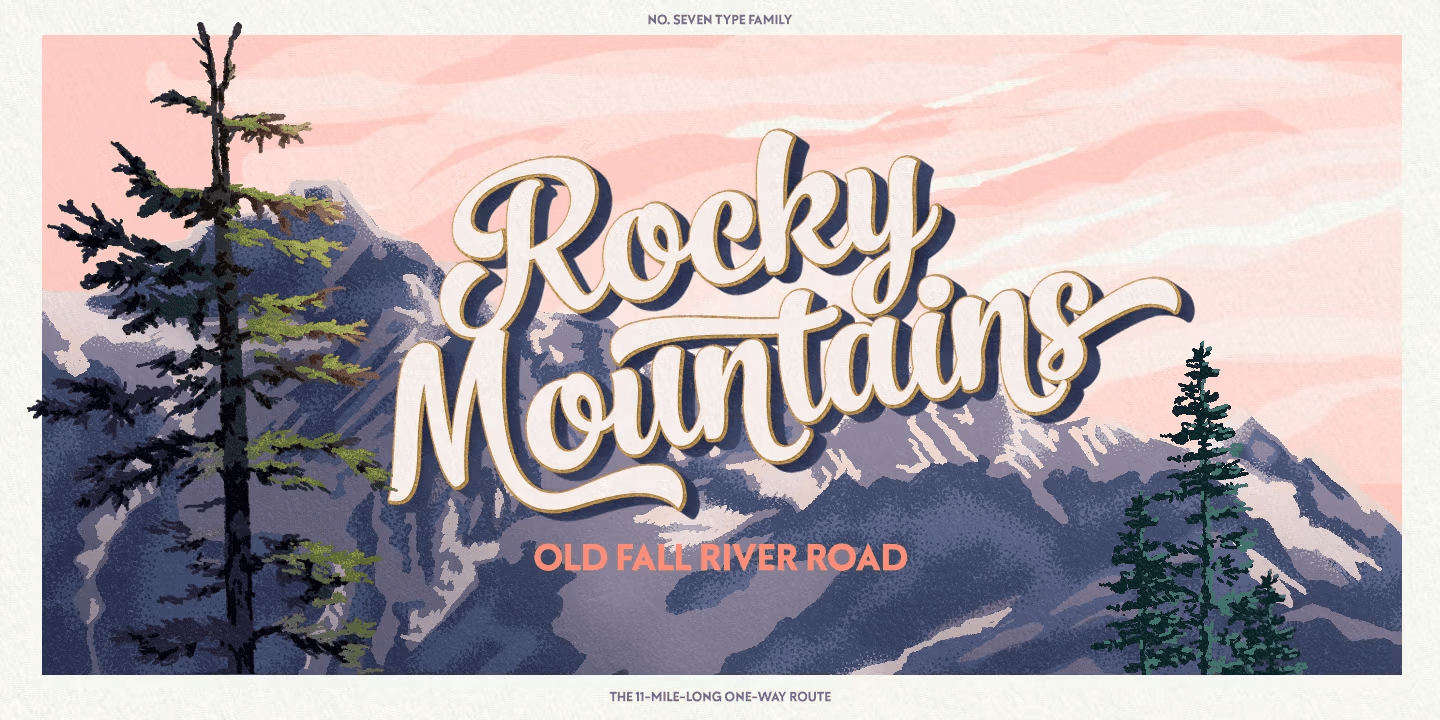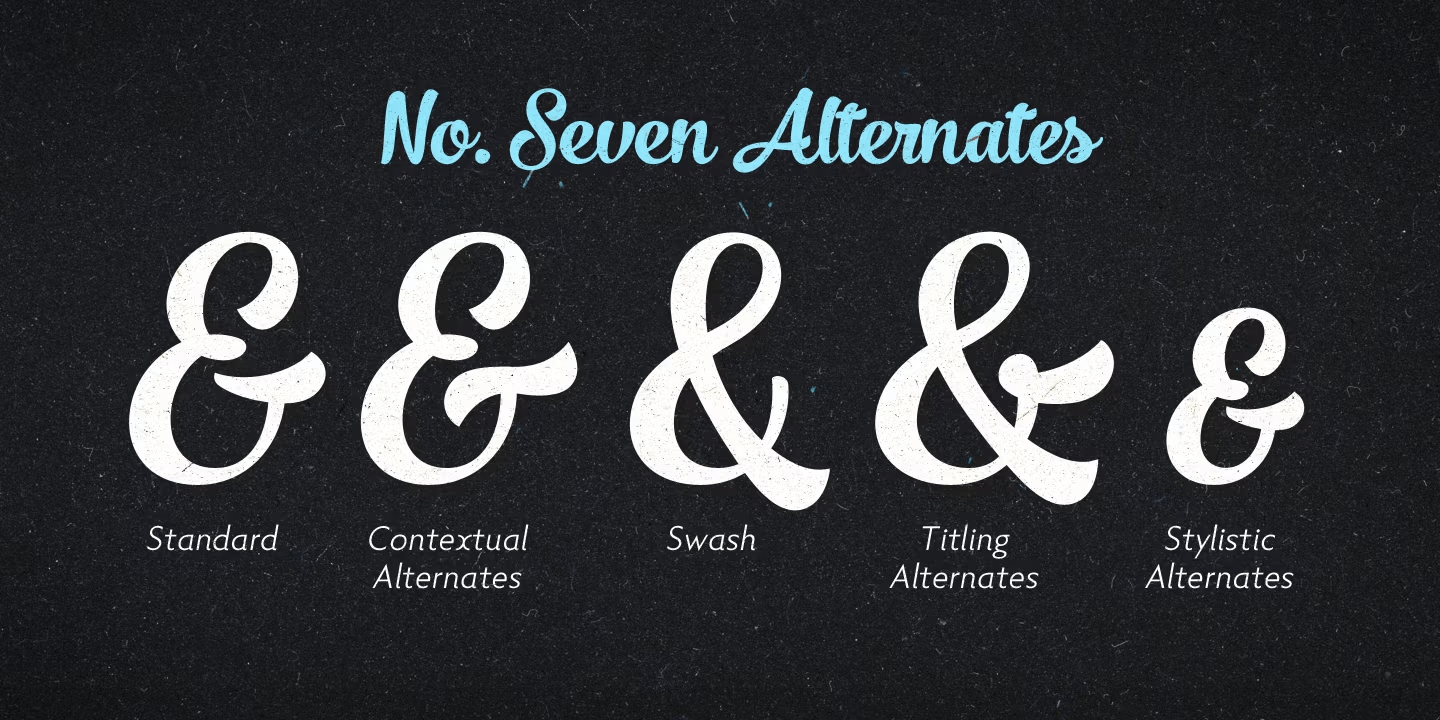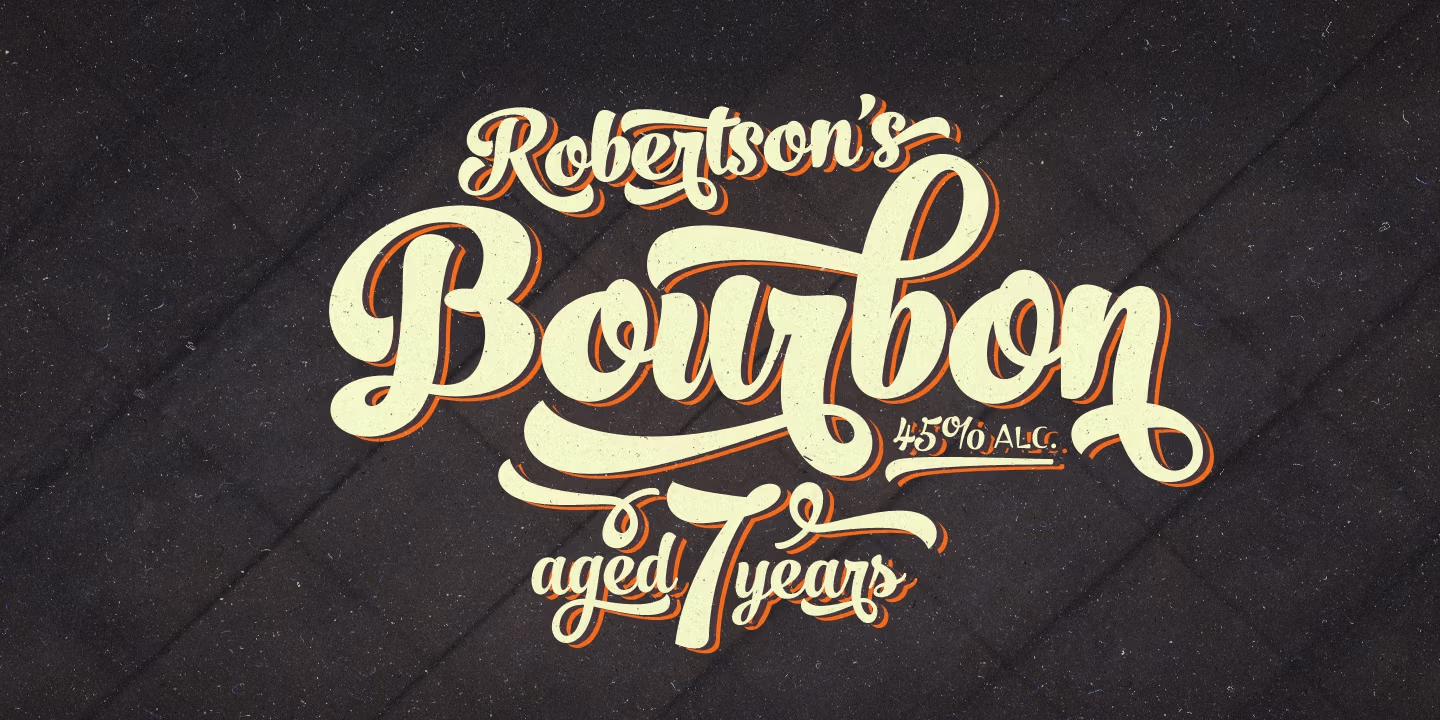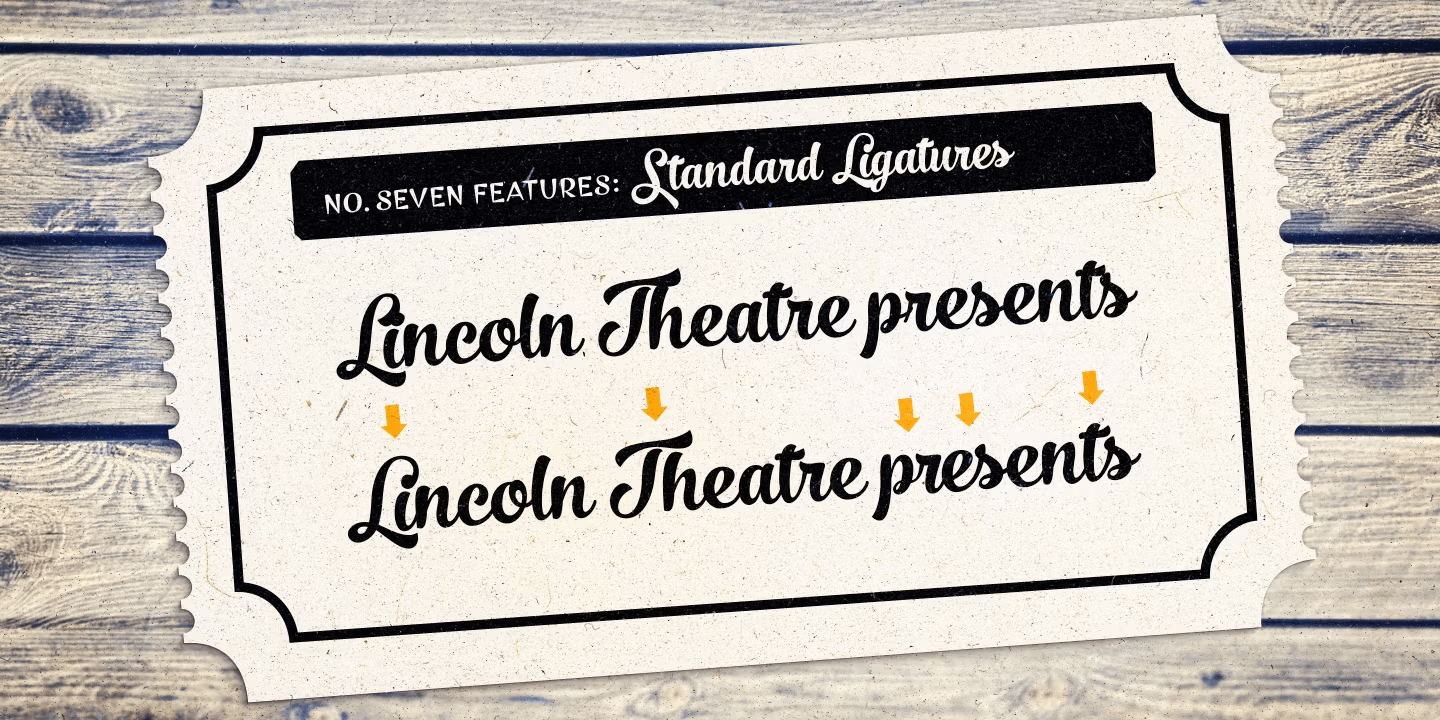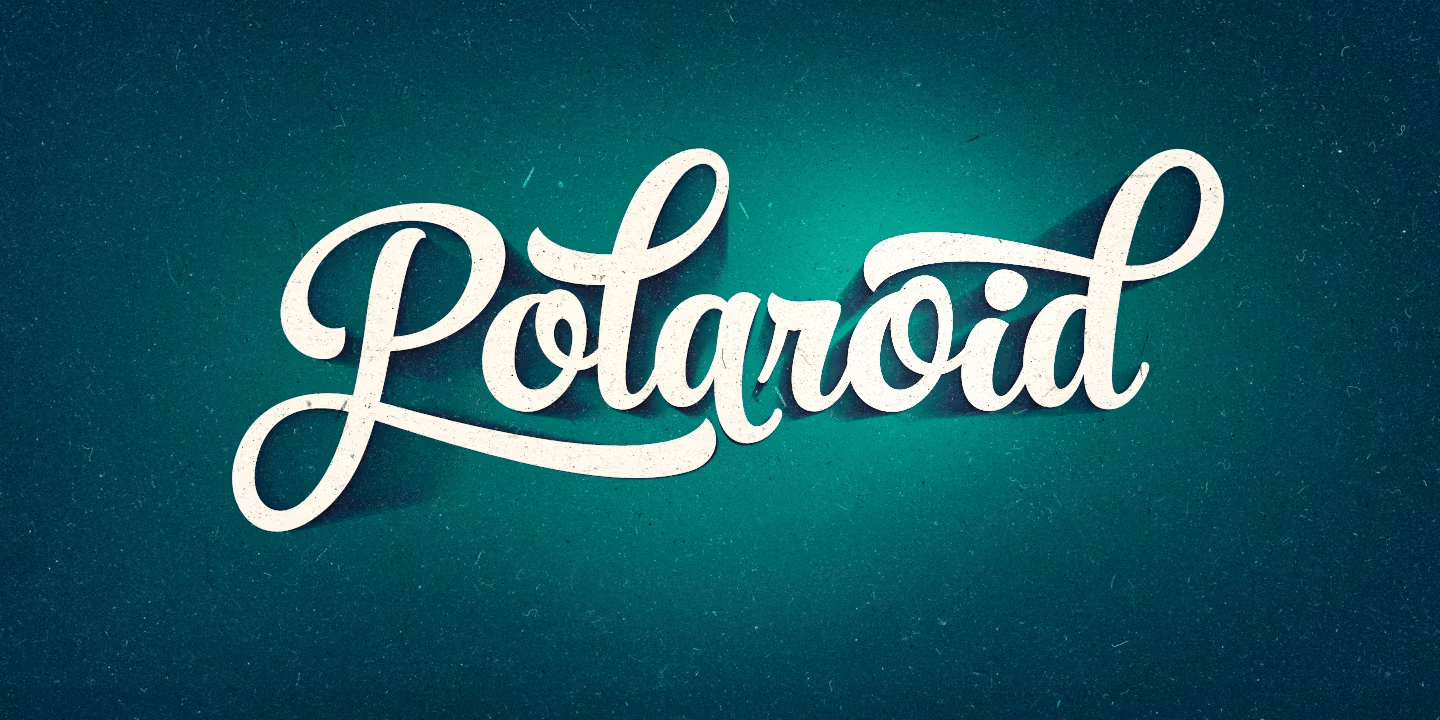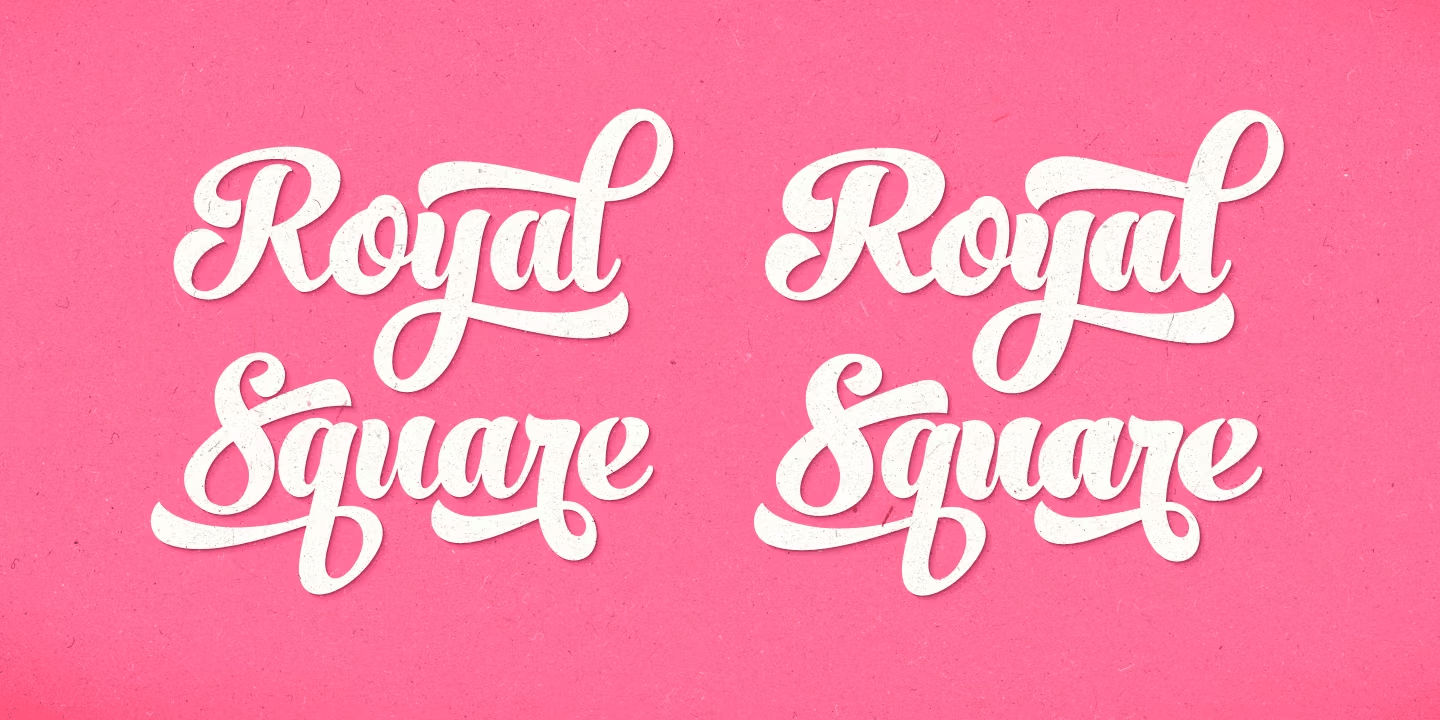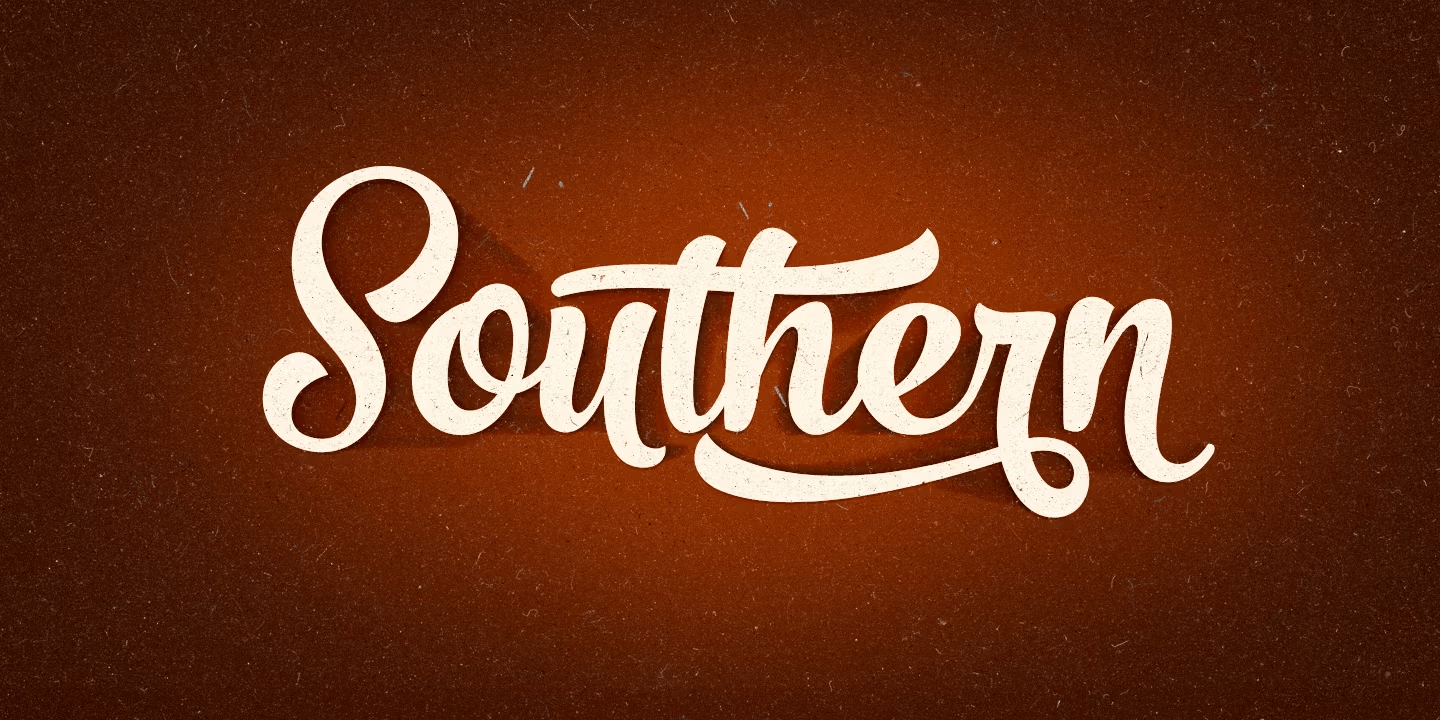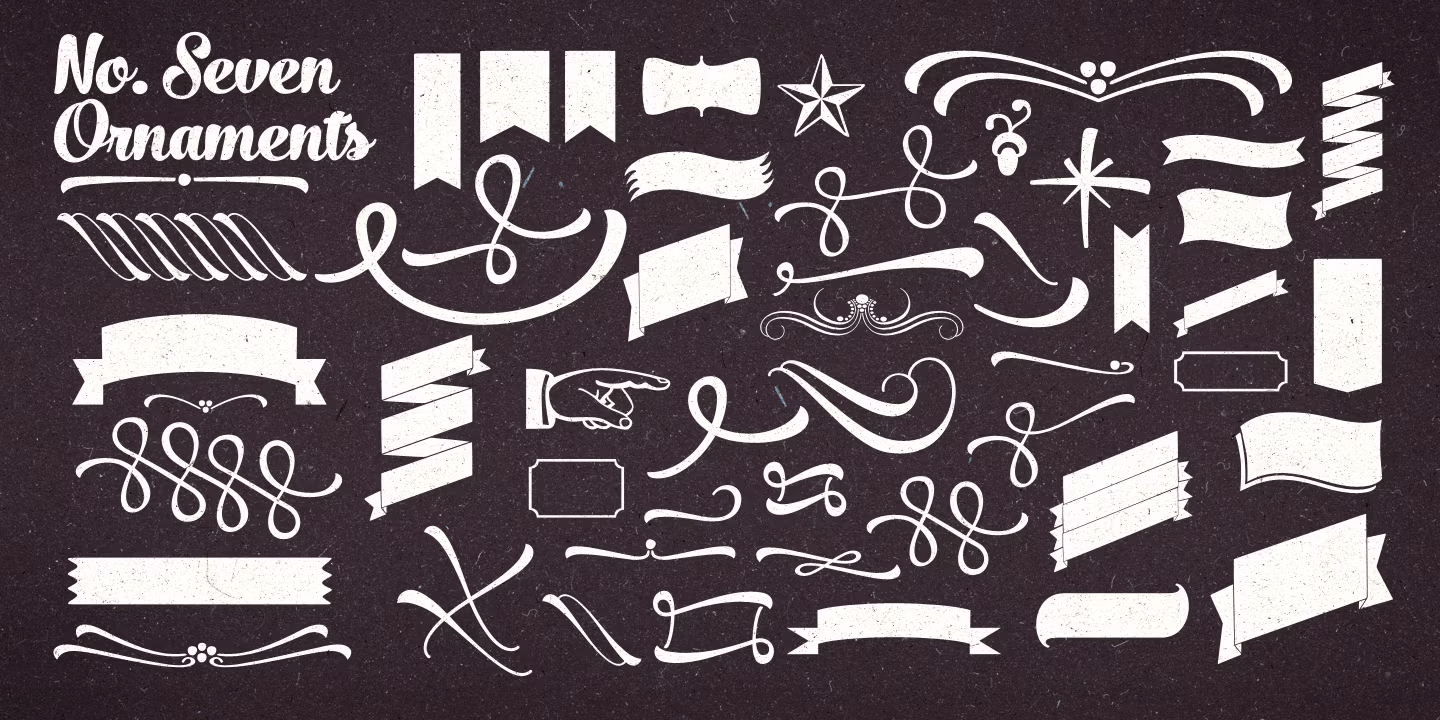
No Seven
No. Seven is a bold brush style script family of three weights, ornament set and a block capital "small caps" font. No. Seven is equipped with plenty of OpenType features: To activate the alternates click on Swash, Contextual, Stylistic or Titling Alternates or Discretionary Ligatures, Tabular or OldStyle Lining in any OpenType savvy program or manually select the characters from Glyph Palette. Always keep on Standard Ligatures for the best outcome. Combine No. Seven with No. Seven Ornaments and No. Seven Small Caps to complete your designs. No. Seven is an effective font for creating ambitious headlines, logos & posters with a custom-made feeling. For the best price purchase the complete No. Seven Family.